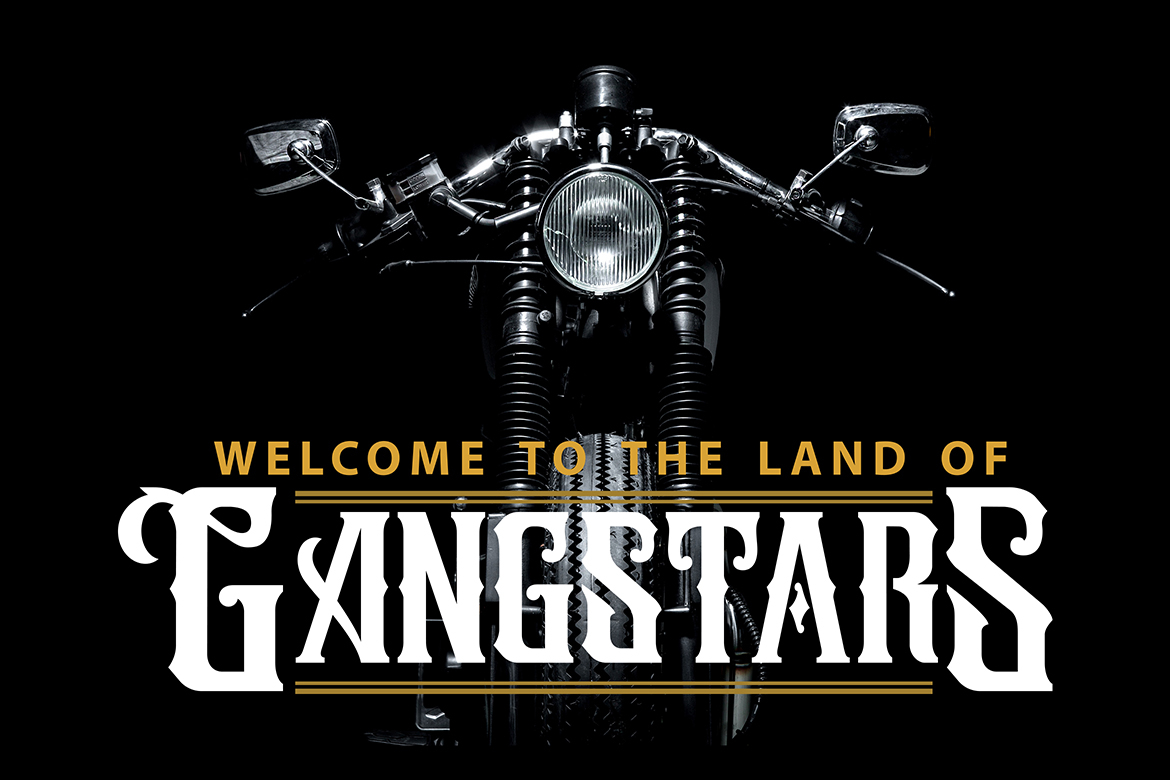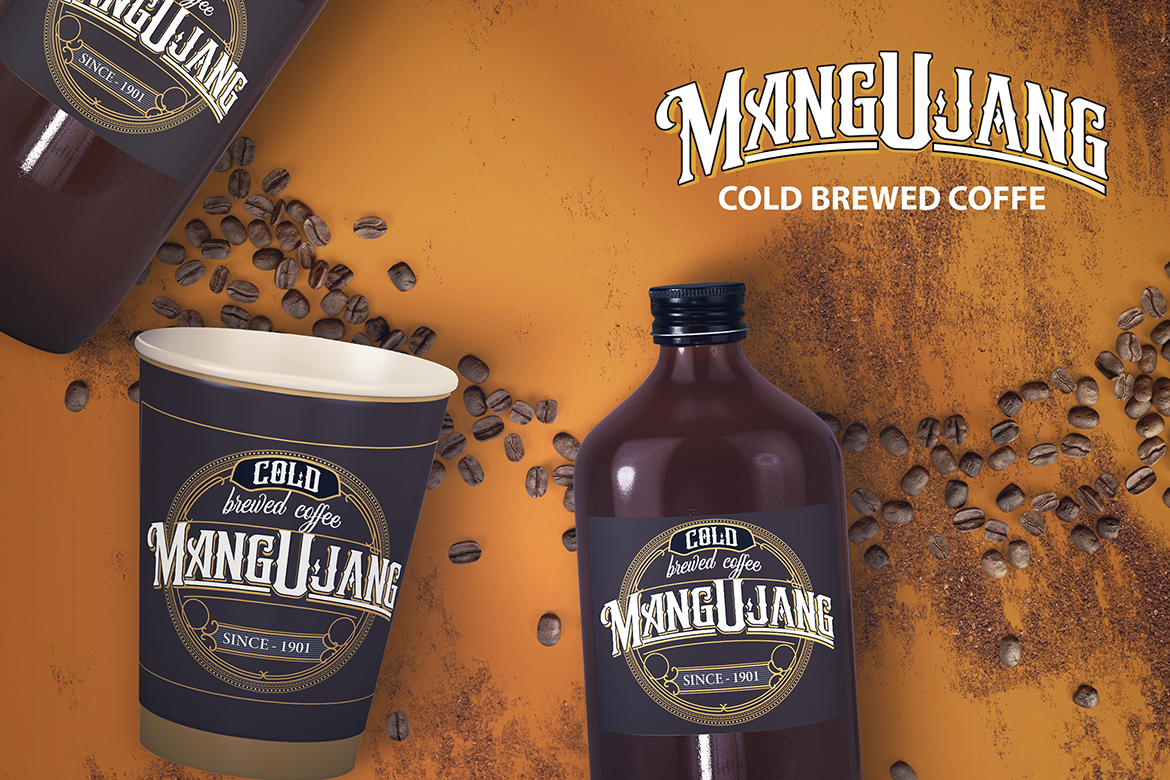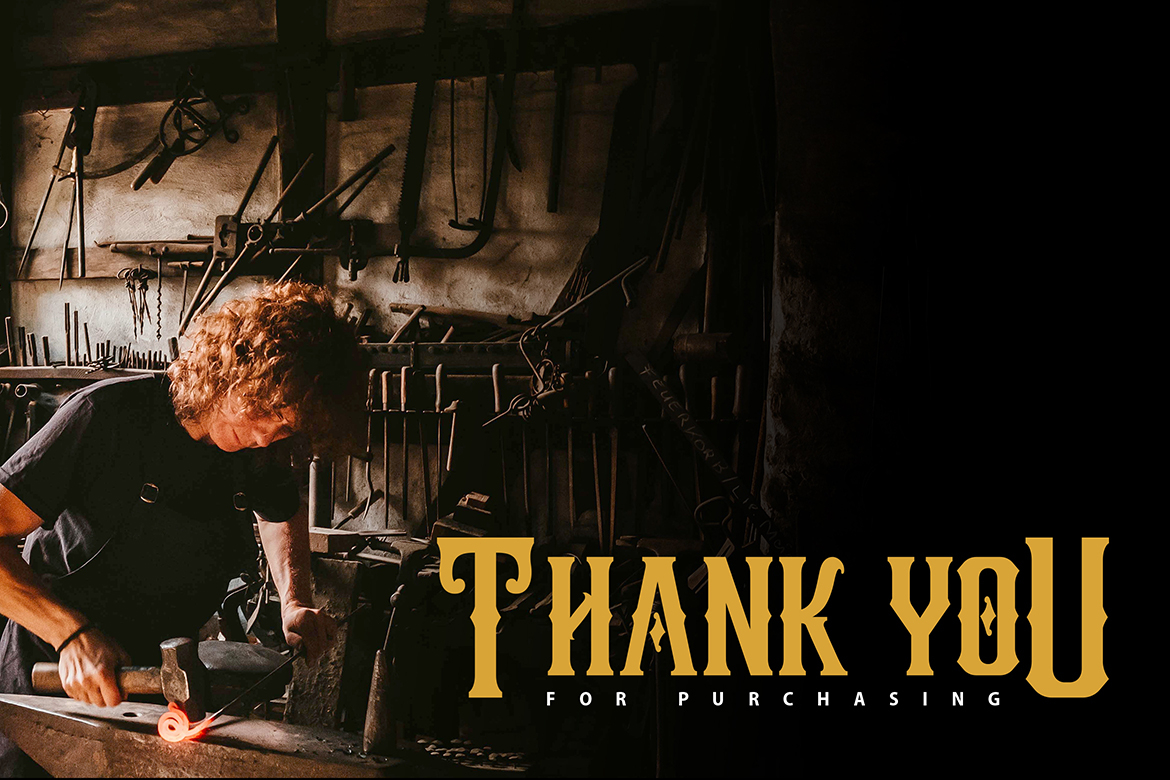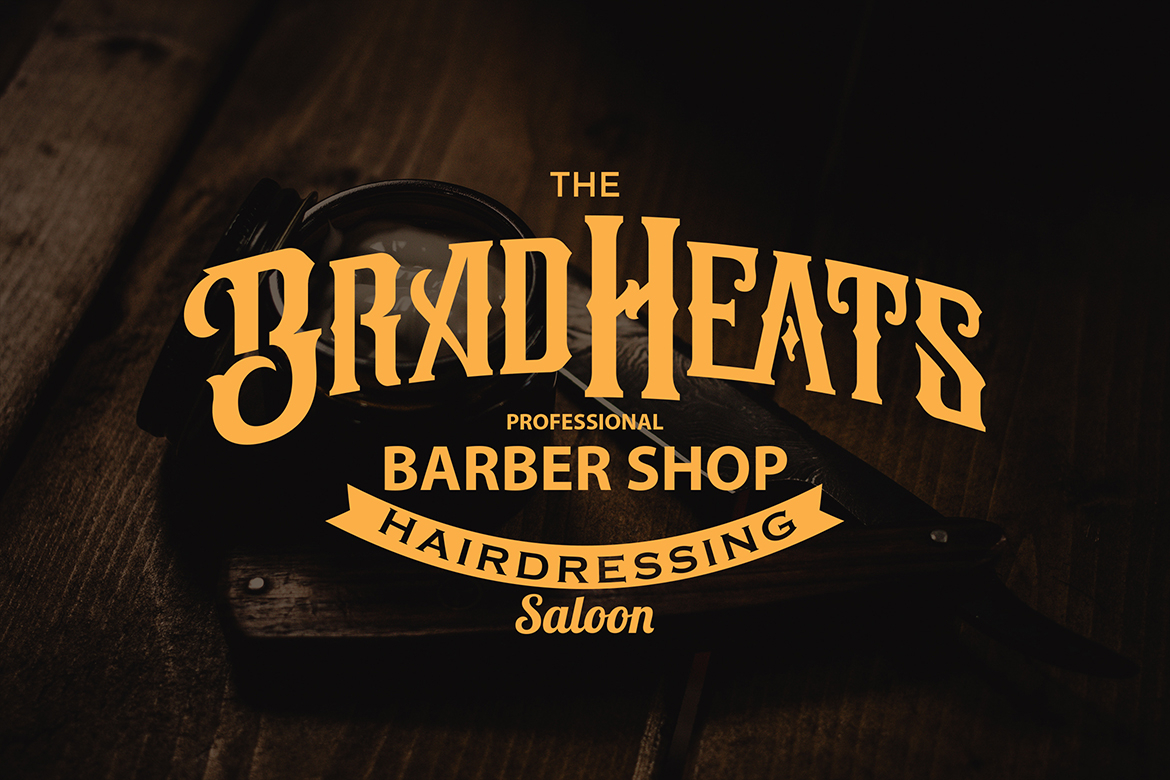
Legendarie Font
About Legendarie Font
Legendarie is a sophisticated blackletter font that features luxurious letters. Ignite your creativity with this must-have font!